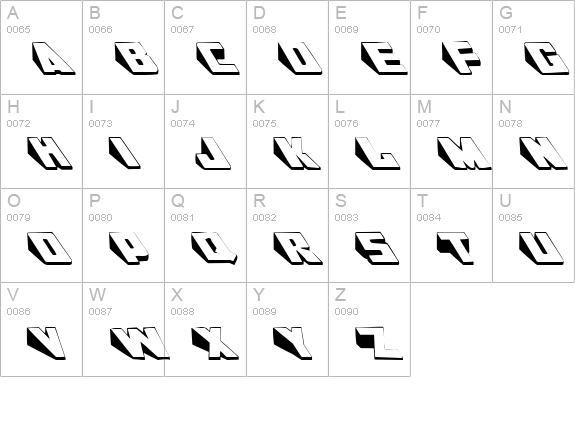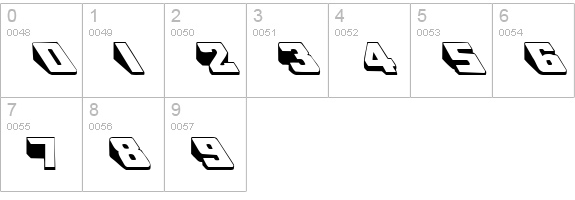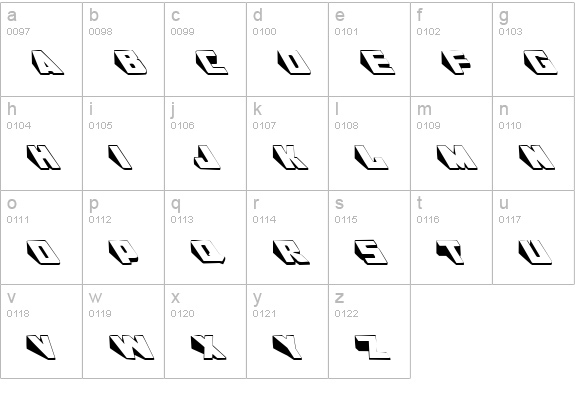
Divingboard Font Details
Divingboard font is a modern and stylish typeface that exudes elegance and sophistication. Its clean lines and sleek design make it perfect for a wide range of projects, from branding to editorial design. With its unique and eye-catching letterforms, Divingboard font will add a touch of class to any creative endeavor. What makes Divingboard font even more appealing is that it is completely free to download at FontsMarket.com. This means that you can access this beautiful typeface without any cost, making it a valuable addition to your font collection. Whether you're a designer looking to elevate your work or a hobbyist exploring new typography options, Divingboard font is sure to impress with its versatility and charm. Download it today and see for yourself the impact this font can have on your projects.